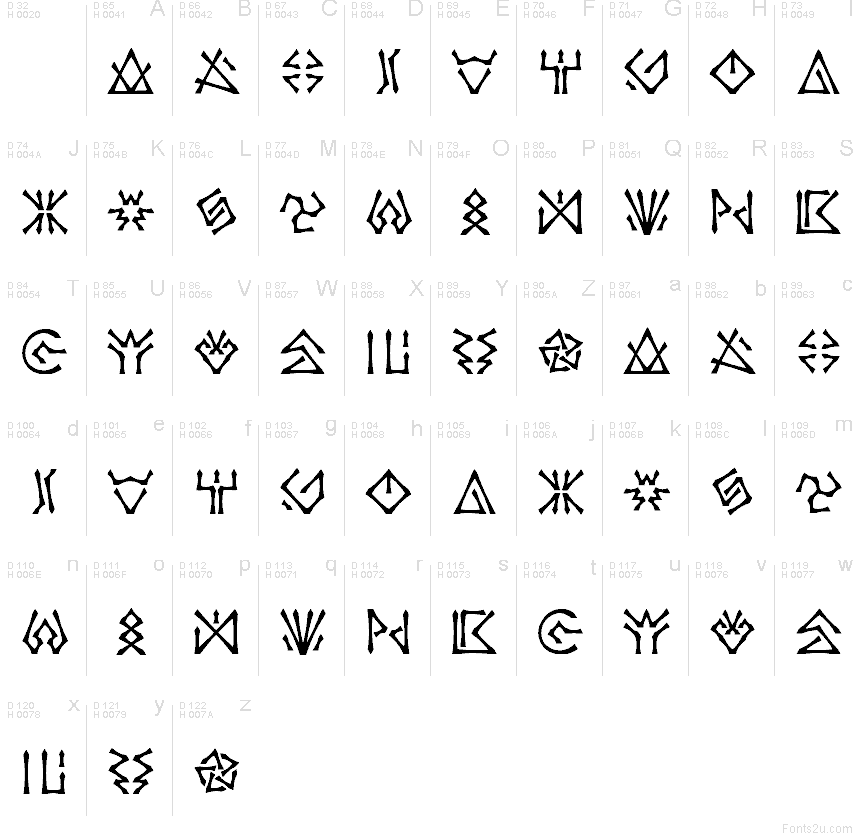
Castorian Script Regular
Castorian Script font by Aemilius Ranta Dyabell is a free dingbat typeface that turns every Latin letter into a sharp, cryptic symbol. The marks feel like carved runes: angular, mirrored shapes with clean, black strokes that click together into mysterious “words.” Type anything, and it instantly becomes a coded inscription, giving you the feel of an invented language without needing to design one from scratch.
Using Castorian Script, you can craft puzzle titles, fantasy maps, secret notes, escape-room props, game UIs, book chapter glyphs, or occult-themed posters that beg to be decoded. This free font shines at larger sizes where its geometric edges stay crisp and legible as symbols. For extra drama, pair it with a simple sans serif for body text, letting Castorian Script handle headings, logos, and hidden messages.